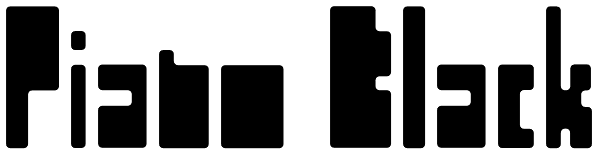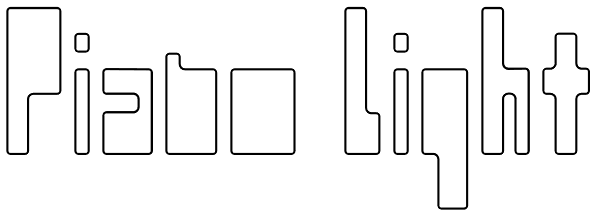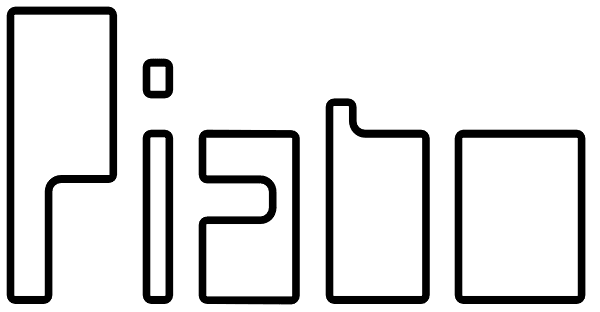
Piano
I was interested in creating a very minimalist font, and also interested in closed shapes. I thought about the appearance of keys on a piano and realized it could be made into such a font. The result creates text that has its own cohesive...
Piano Black
Piano Light
Piano